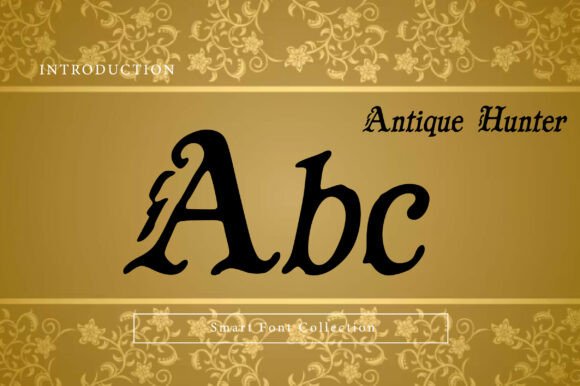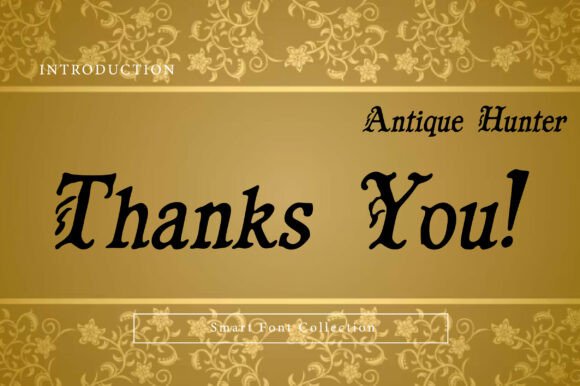
Discover the Charm of Antique Hunter Font: A Vintage-Inspired Serif Display Typeface
Are you a designer or crafter looking for a font that can add a touch of nostalgia and heritage to your projects? Look no further than Antique Hunter Font, a vintage-inspired serif display typeface that blends classic old-style letterforms with a slightly playful and handcrafted character. In this article, we’ll explore the unique features of Antique Hunter Font and how it can elevate your designs.
What is Antique Hunter Font?
Antique Hunter Font is a serif display typeface that draws inspiration from traditional printing and handcrafted lettering. Its bold strokes, curved terminals, and decorative details evoke a nostalgic, historical feel while remaining highly readable. This font is perfect for designers and crafters who want to add a touch of antique charm to their projects.
Key Features of Antique Hunter Font
- Bold Strokes: Antique Hunter Font features bold strokes that give it a strong and confident look. The strokes are carefully crafted to create a sense of movement and fluidity.
- Curved Terminals: The curved terminals of Antique Hunter Font add a touch of elegance and sophistication. They also help to create a sense of continuity and flow.
- Decorative Details: The font is adorned with decorative details that add to its vintage charm. These details include intricate flourishes and ornaments that give the font a unique and distinctive look.
- Highly Readable: Despite its bold and decorative features, Antique Hunter Font remains highly readable. This makes it perfect for use in headlines, titles, and other display text.
Uses for Antique Hunter Font
Antique Hunter Font is a versatile font that can be used in a variety of design projects. Here are some ideas to get you started:
- Retro Branding: Use Antique Hunter Font to create a retro-inspired brand identity that evokes a sense of nostalgia and heritage.
- Logos: The font’s bold and decorative features make it perfect for use in logos that need to stand out.
- Book Covers: Add a touch of vintage charm to your book covers with Antique Hunter Font.
- Packaging: Use the font to create eye-catching packaging that stands out on store shelves.
- Posters: Antique Hunter Font is perfect for use in posters that need to grab attention.
- Headlines: Use the font to create bold and eye-catching headlines that draw readers in.
Why Choose Antique Hunter Font?
There are many fonts available that claim to offer a vintage or antique look, but Antique Hunter Font stands out from the crowd. Here are just a few reasons why:
- Unique Character: Antique Hunter Font has a unique and distinctive character that sets it apart from other fonts.
- High-Quality Design: The font is carefully crafted to ensure that it is of the highest quality.
- Versatility: Antique Hunter Font can be used in a wide range of design projects.
- Readability: The font remains highly readable, even at small sizes.
Antique Hunter Font is a vintage-inspired serif display typeface that is perfect for designers and crafters looking to add a touch of nostalgia and heritage to their projects. With its bold strokes, curved terminals, and decorative details, this font is sure to evoke a sense of antique charm. Whether you’re working on a retro branding project, a book cover, or a poster, Antique Hunter Font is a great choice.